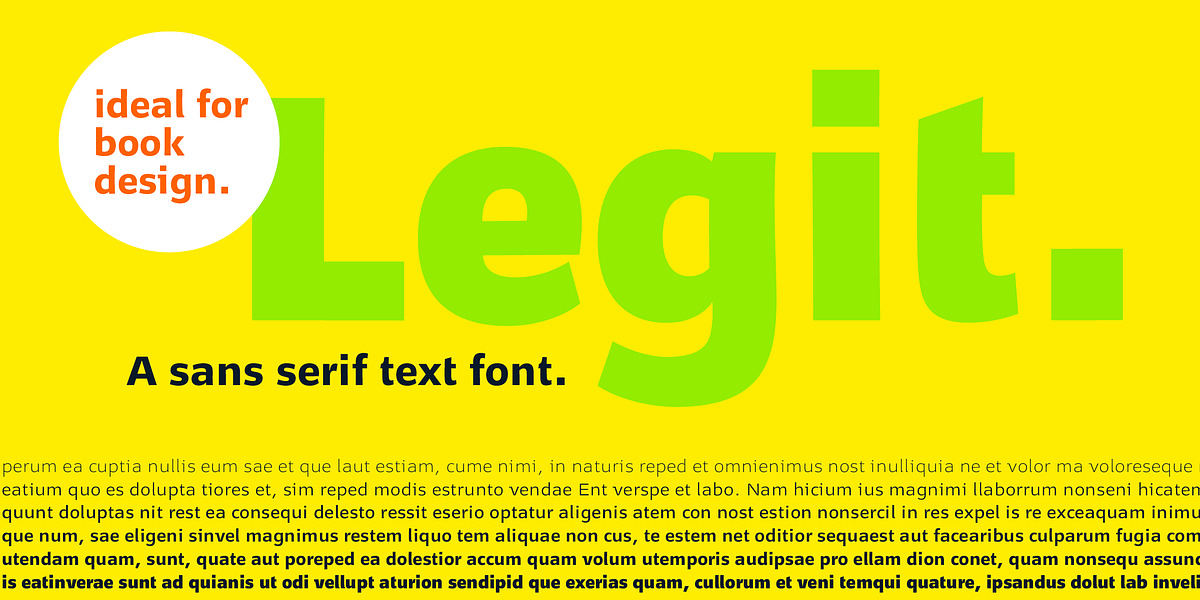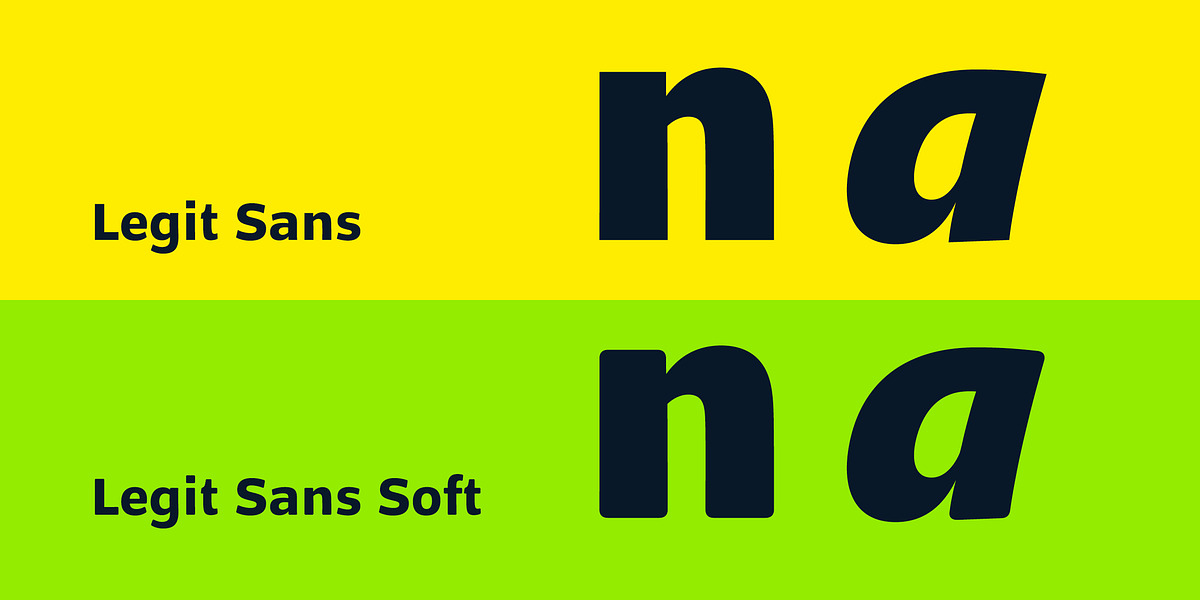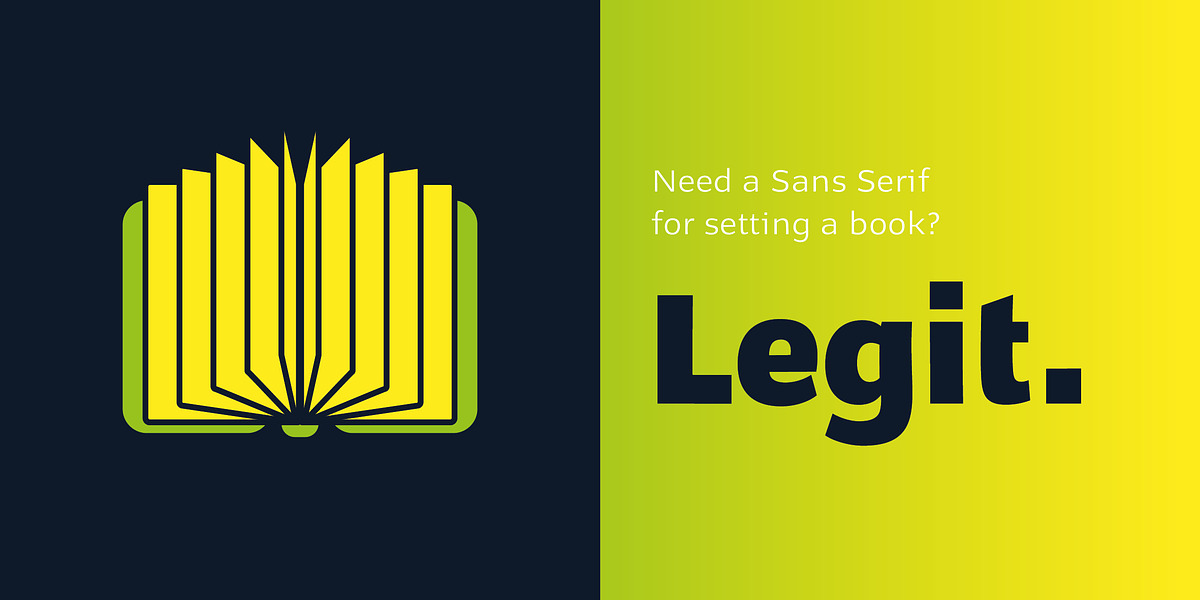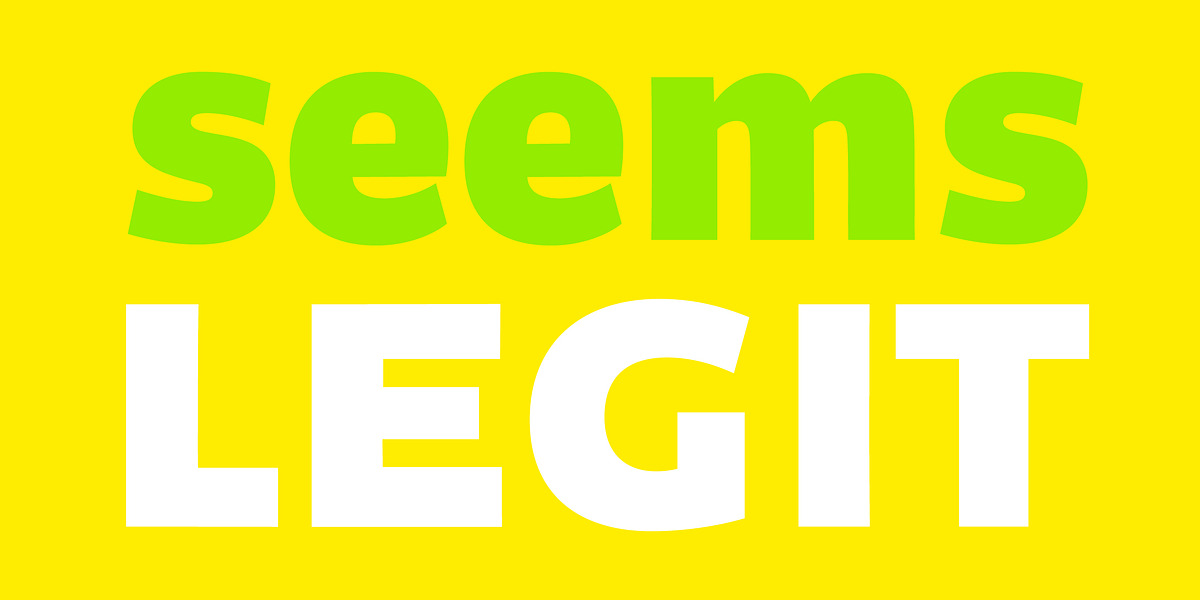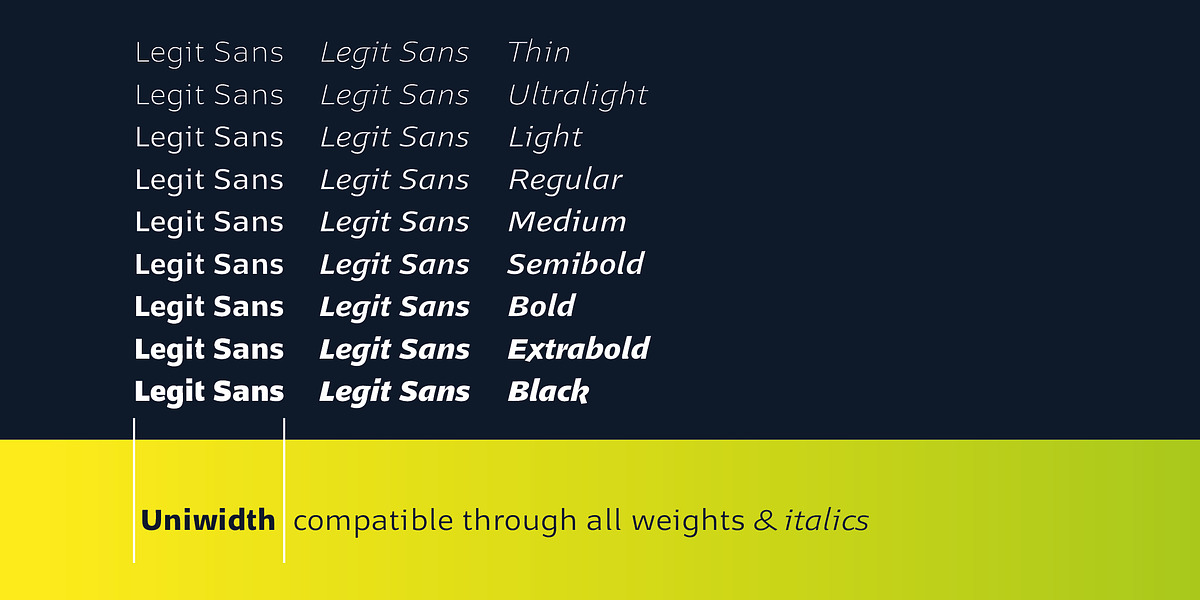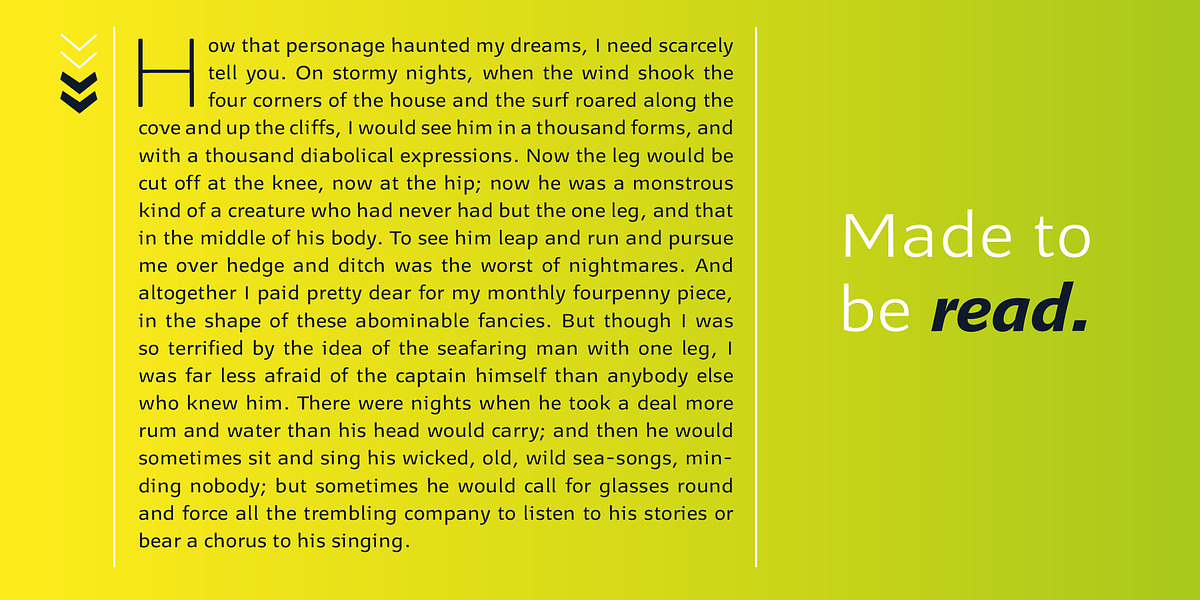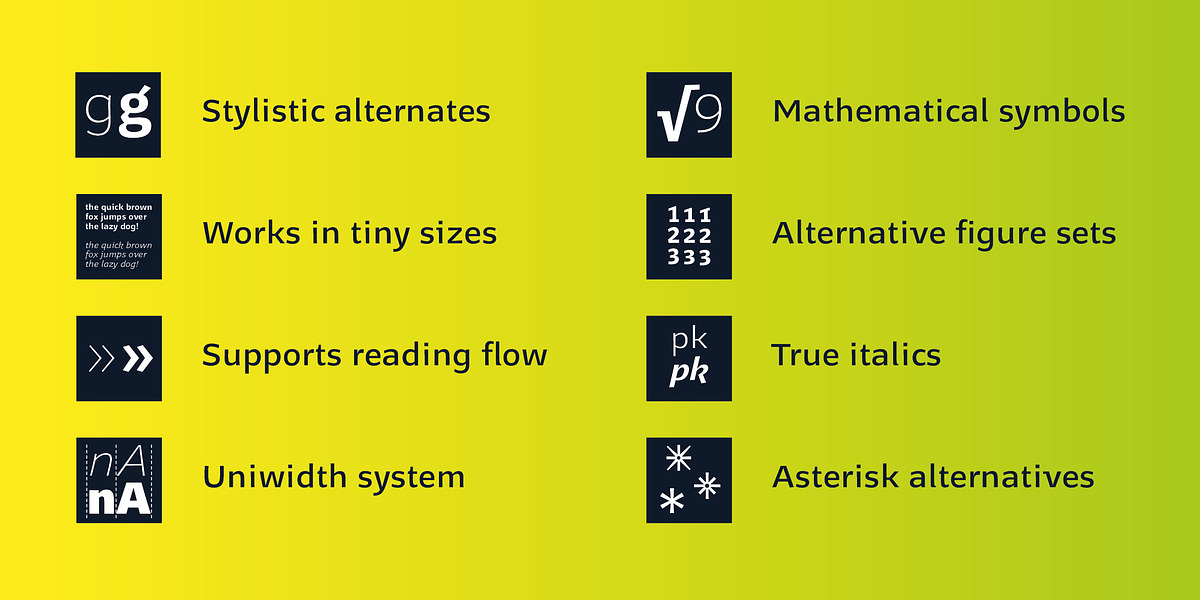
Legit Sans
Legit Sans is a humanist sans serif font designed for optimal readability in both small and large sizes. Its key feature is its uniwidth system, which ensures all 18 styles maintain the same width, allowing for easy swapping between styles without altering the layout. The font includes ligatures, stylistic alternates, and strong accents, supporting over 36 languages.